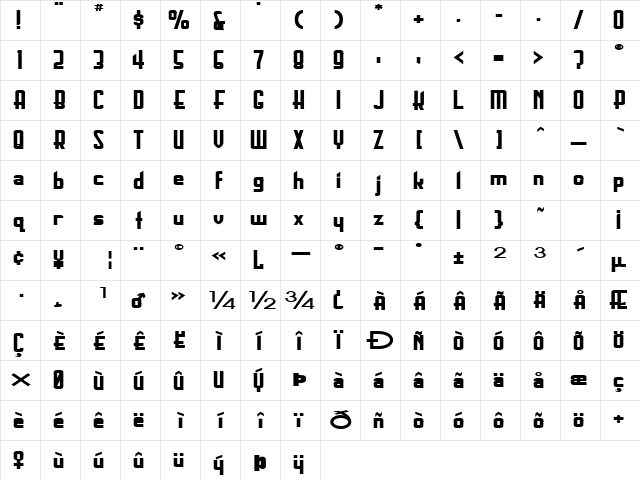
BoastingTextLight116 Bold Font Preview
BoastingTextLight116 Bold
BoastingTextLight116 Bold Font Details
Design Context for BoastingTextLight116 Typeface
BoastingTextLight116 is a composed and adaptable typeface that performs quietly and consistently across a wide range of design contexts. The heavy weight commands attention and anchors typographic hierarchies.